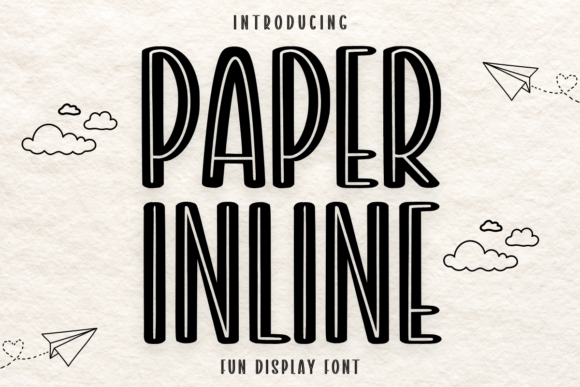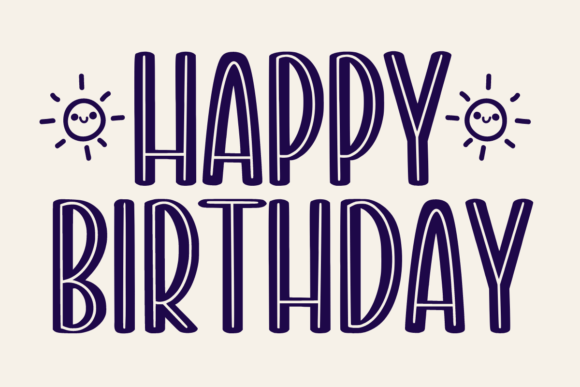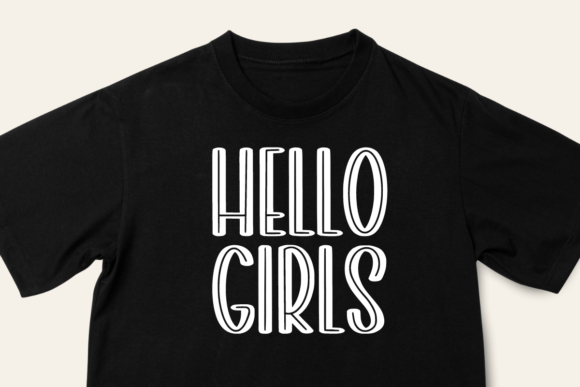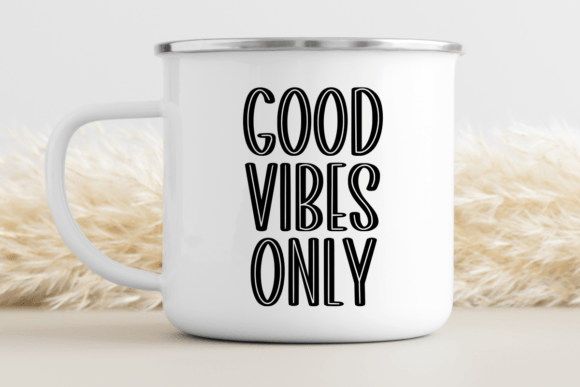
Paper Inline Font: A Playful Display Font for Cute Designs
About the Paper Inline Font
Welcome to the world of Paper Inline Font, a typeface that will inspire your next great project. Paper Inline is a cute and quirky display font. It will add an incredibly joyful touch to your designs. Add this beautiful display font to each of your creative ideas and notice how it makes them stand out!
Paper Inline’s playful character makes it ideal for headlines, short text blocks on posters, and branding elements where a touch of whimsy is desired. It excels in packaging design for products targeting a younger demographic or those with a lighthearted brand identity. However, its quirky forms are less suitable for body text or UI elements requiring high readability. Extended use could hinder legibility.
Pairing Paper Inline with a clean sans-serif like Open Sans for body copy creates a balanced contrast, allowing the display font to shine without overwhelming the reader. For a more sophisticated feel, consider pairing it with a delicate serif font like Lora, which adds a touch of elegance to offset Paper Inline’s playful energy.
The font’s overall personality is best described as cheerful and informal; it projects a sense of fun and approachability, making it a strong choice for brands aiming for a friendly, approachable image.
Paper Inline Font Usage Examples
Paper Inline Font Example